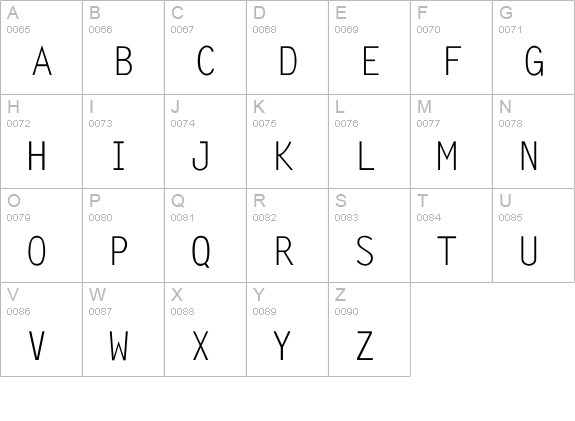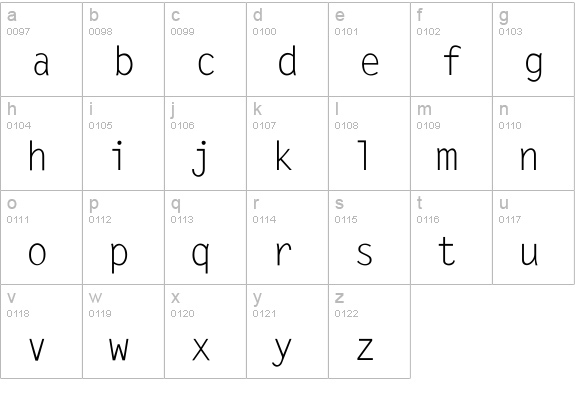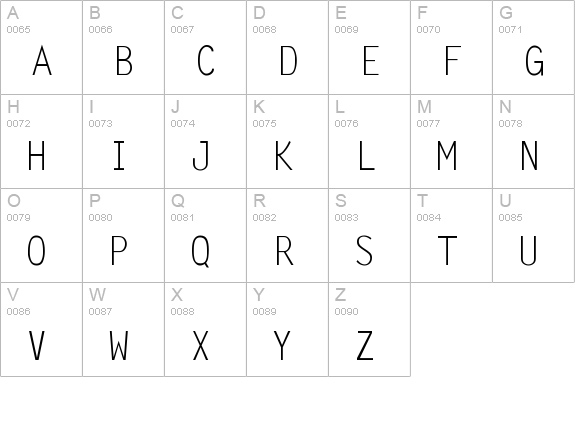
LetterGothic-Normal Font Details
LetterGothic-Normal is the standard, neutral variant in the LetterGothic typeface family \xE2\x80\x94 well suited to general body text, paragraphs, and standard typographic work.
LetterGothic-Normal is a versatile and modern font that exudes a sense of professionalism and clarity. With its clean lines and well-defined characters, this font is perfect for a wide range of design projects, from logos and branding to website headers and printed materials. One of the best things about LetterGothic-Normal is that it is available for free. Yes, you read that right! This fantastic font can be freely downloaded from FontsMarket.com, making it accessible to everyone, regardless of their budget or design needs. Whether you are a professional designer looking to add a touch of elegance to your latest project or a student working on a school assignment, LetterGothic-Normal is sure to impress. Its sleek and sophisticated appearance will instantly elevate your designs and capture the attention of your audience. The versatility of LetterGothic-Normal is another reason why it stands out among other fonts. It works equally well in both bold and italic styles, allowing you to experiment and create unique combinations that perfectly reflect your vision. The legibility of LetterGothic-Normal is exceptional, making it the ideal choice for both print and digital applications. Each character is meticulously designed to ensure clarity and ease of reading, even at small sizes. So, why wait? Take advantage of the opportunity to download LetterGothic-Normal for free at FontsMarket.com. With its exceptional design, versatility, and accessibility, this font is a must-have for any designer or creative individual. Give your projects a professional and polished look with LetterGothic-Normal today!